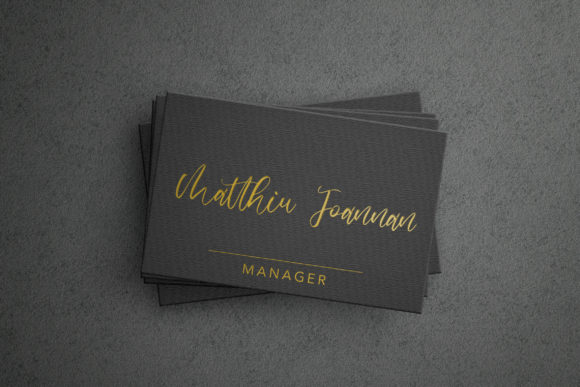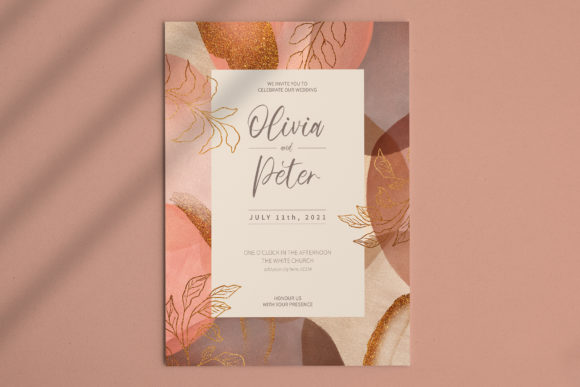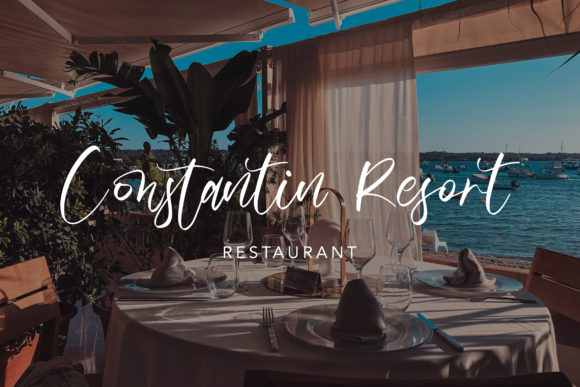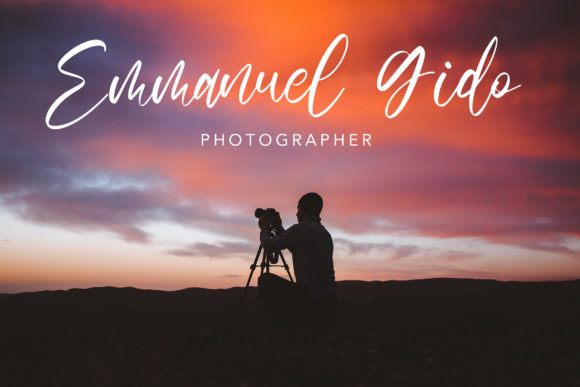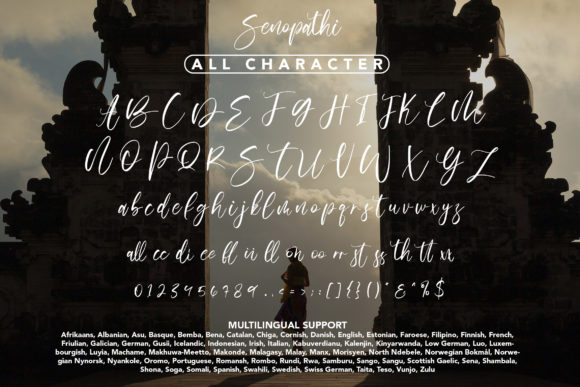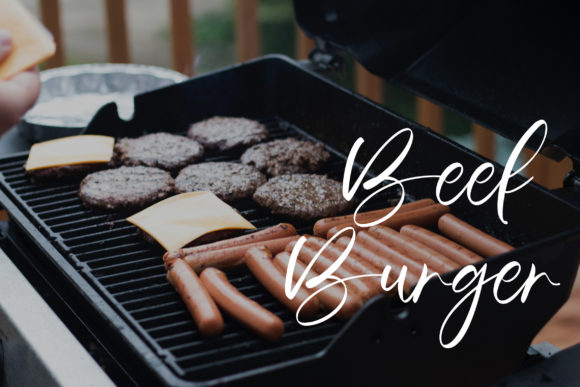
Senopathi Font
About Senopathi Font
Senopathi is a fashionable script font that combines elegance with a touch of playfulness. With its round and delicate letterforms, this font exudes a sense of sophistication and charm. Adding Senopathi to your favorite creations will elevate their visual appeal and leave a lasting impression on your audience.
The rounded and flowing nature of Senopathi’s letterforms gives it a graceful and refined look. Each character is meticulously crafted to maintain a harmonious balance between curves and lines. The result is a font that is pleasing to the eye and exudes a sense of effortless style.
Whether you’re designing a logo, creating wedding invitations, or crafting a stylish branding package, Senopathi will add a touch of elegance to your projects. Its fashionable and script nature makes it a versatile choice for various design applications. From fashion and beauty brands to luxury products and sophisticated events, this font will effortlessly enhance the visual aesthetics of your creations.
The delicate and round letterforms of Senopathi make it a versatile font that can be used for both headlines and body text. Its legibility and stylish appearance make it suitable for a wide range of design projects, including editorial layouts, advertising materials, social media graphics, and more.
By adding Senopathi to your font collection, you open up a world of possibilities for creating visually stunning and impactful designs. Its combination of fashion-forward style and delicate script aesthetics will make your creations stand out and leave a lasting impression on your audience.
In summary, Senopathi is a fashionable and script font that adds a touch of elegance and playfulness to your designs. Its round and delicate letterforms exude sophistication and charm, making it a perfect choice for various design applications. Explore the endless possibilities with Senopathi and create stunning visuals that captivate and inspire.